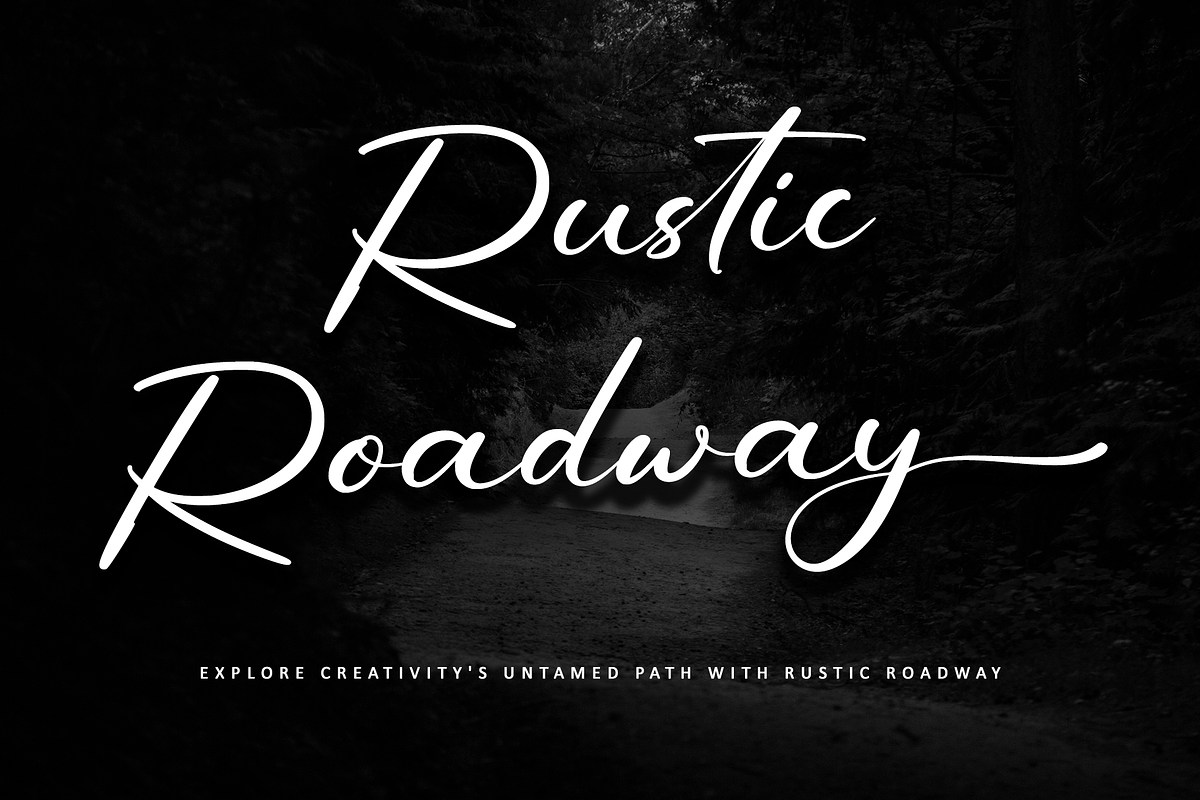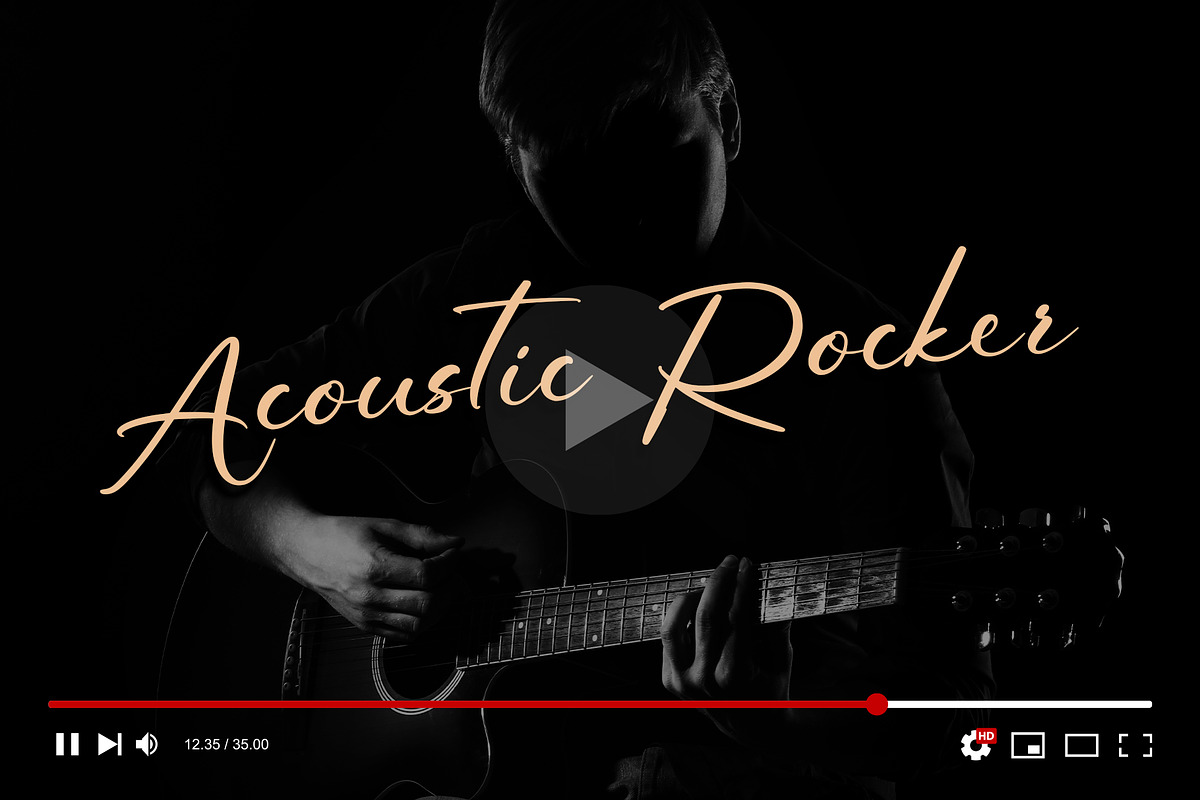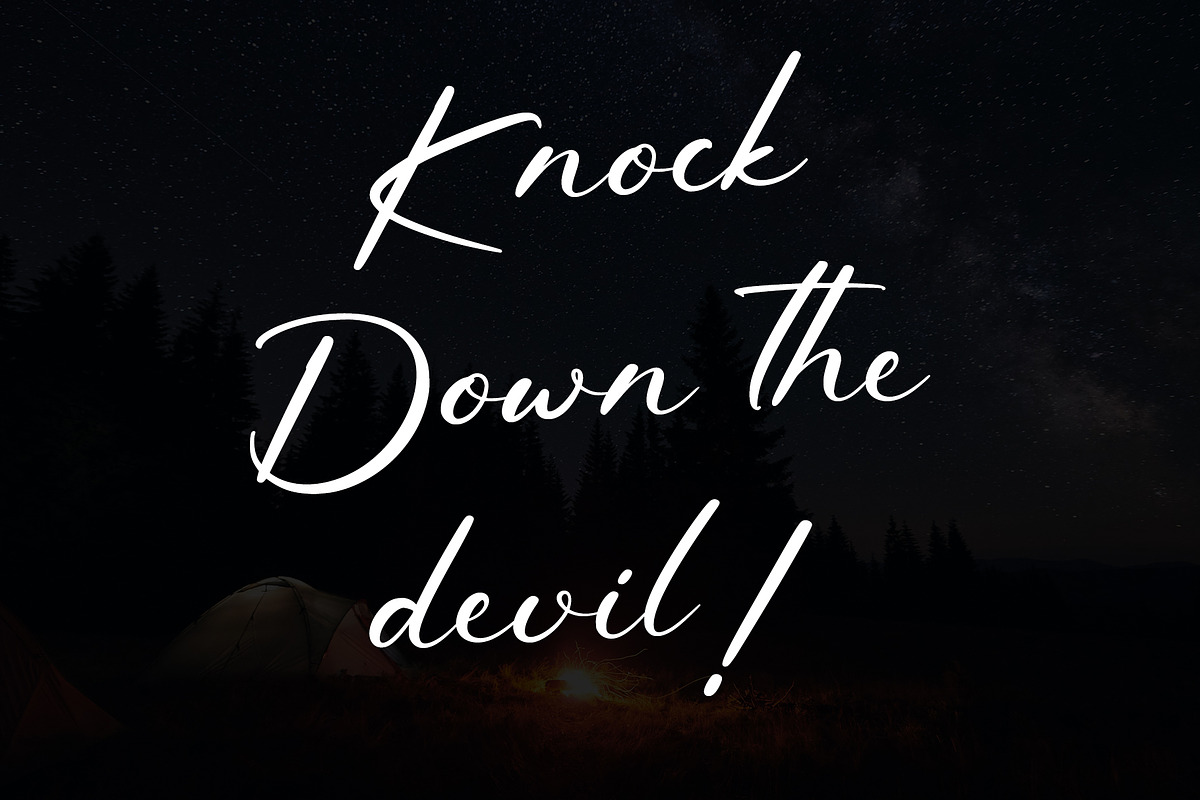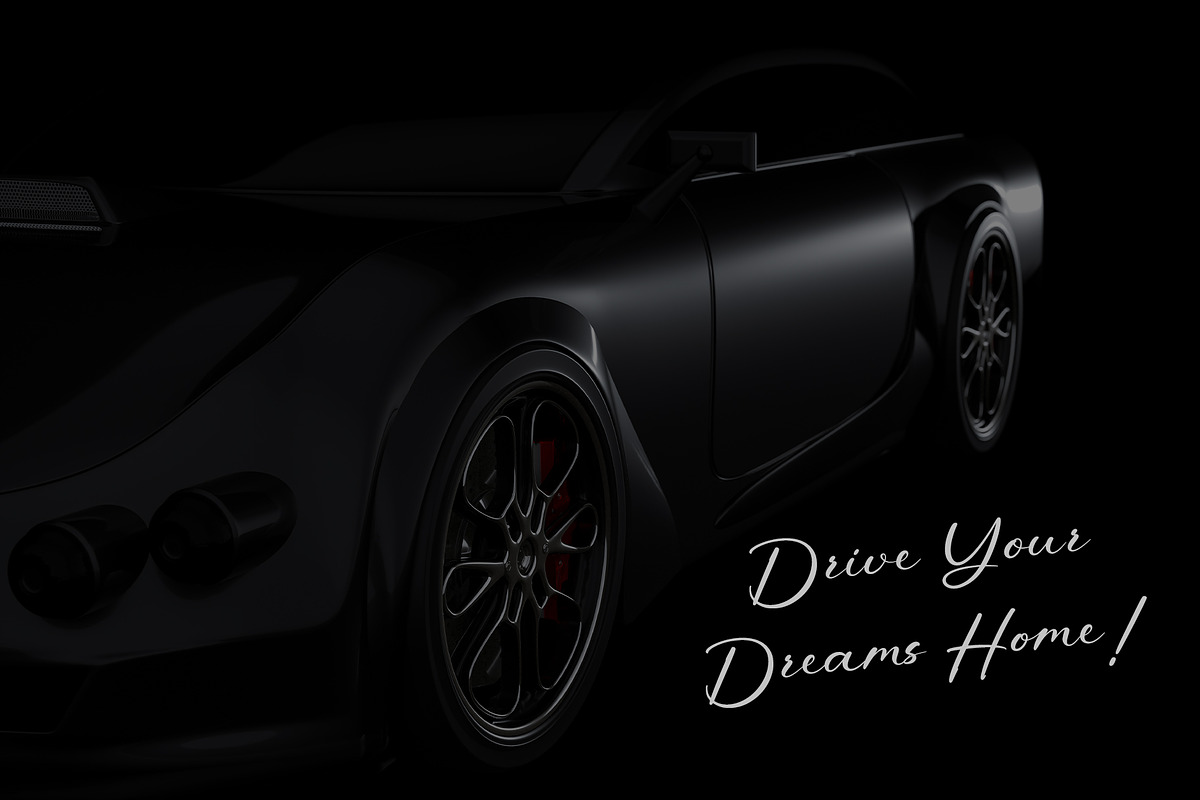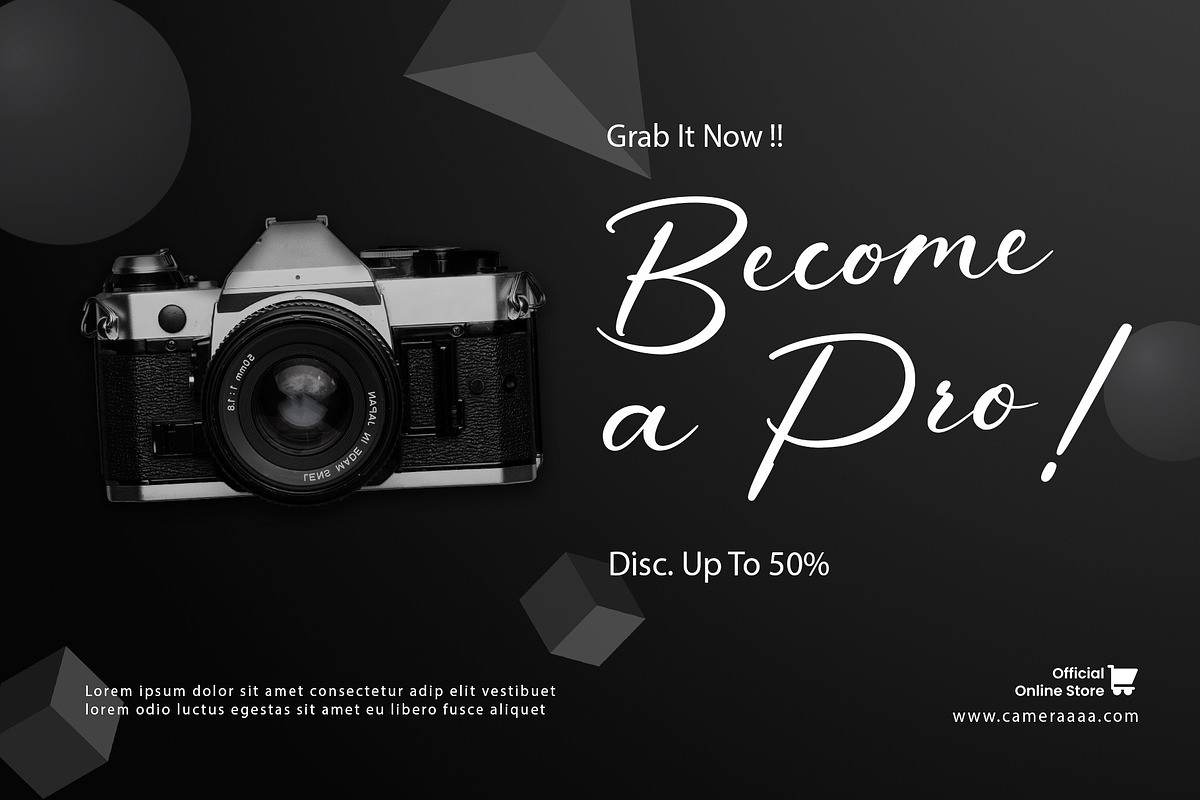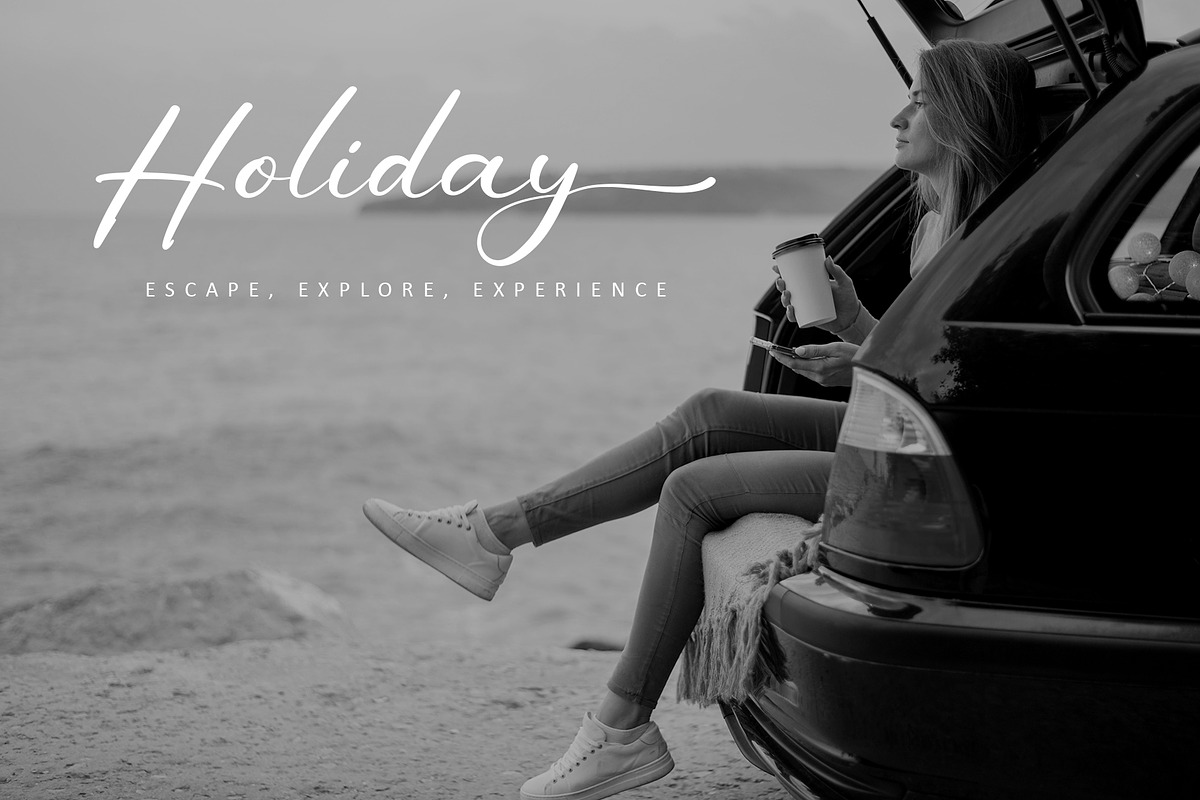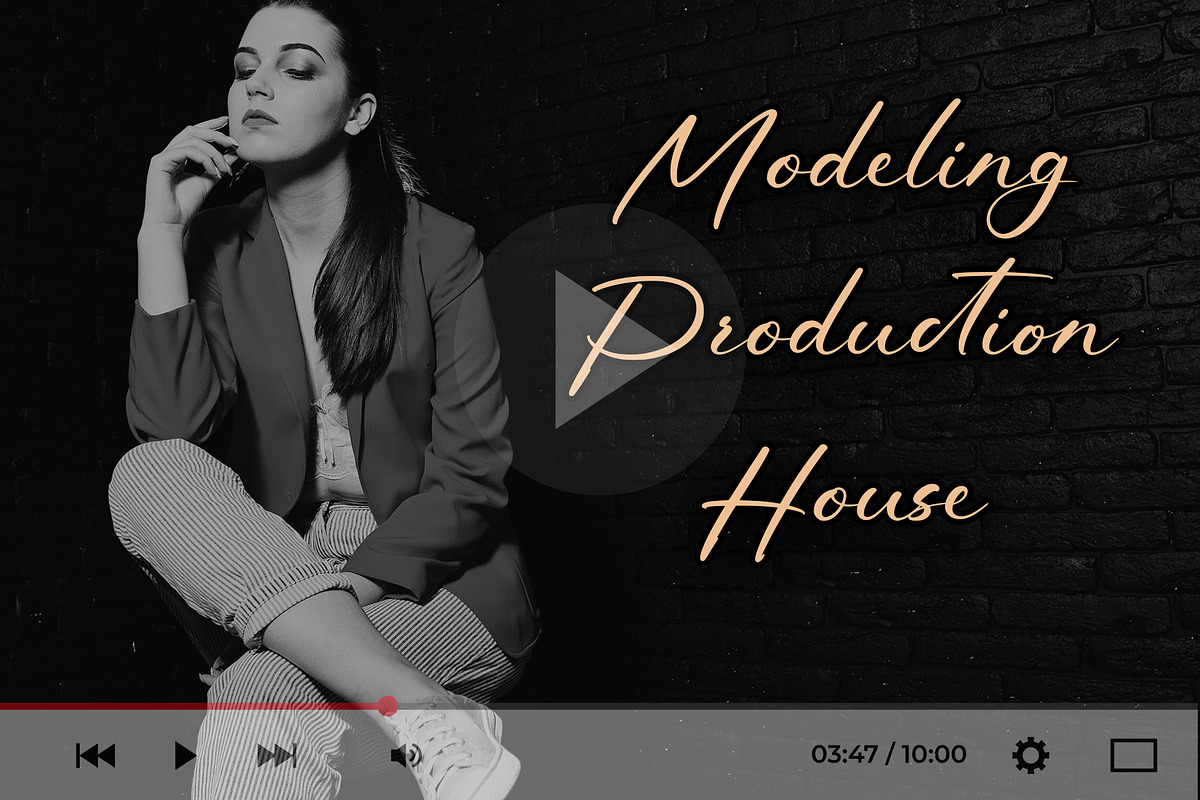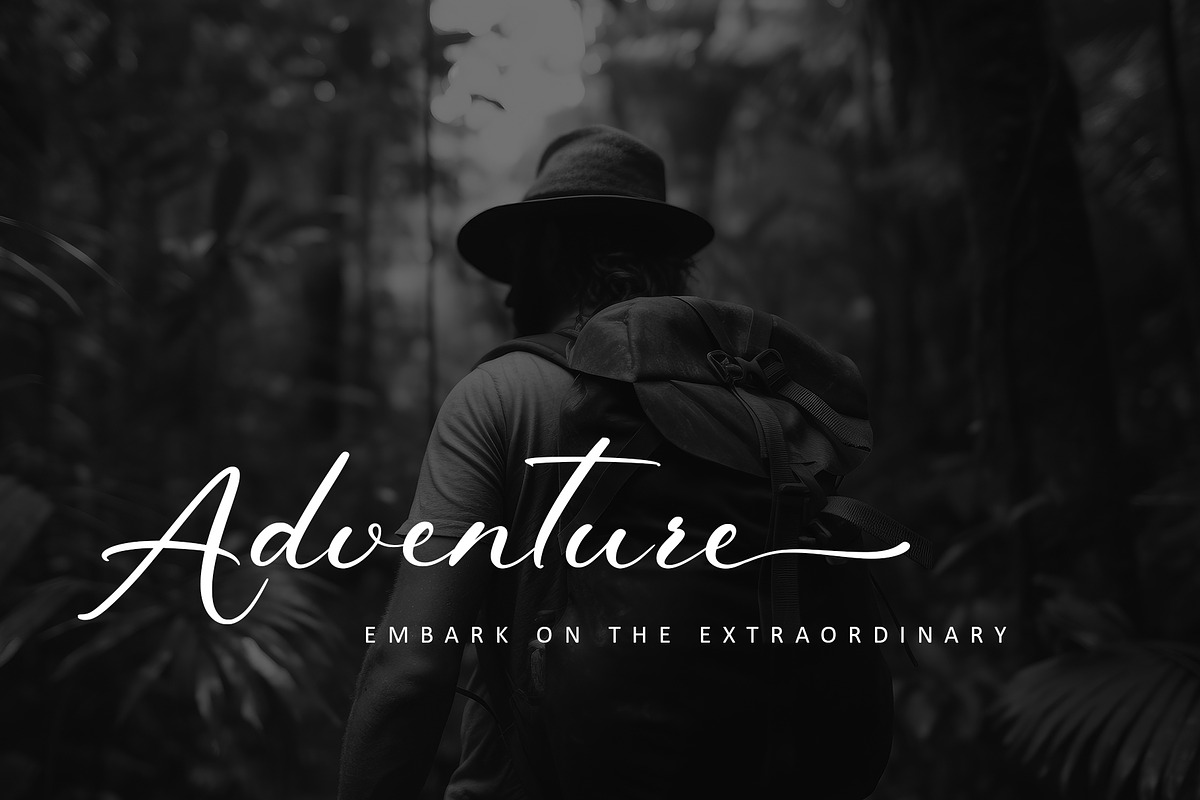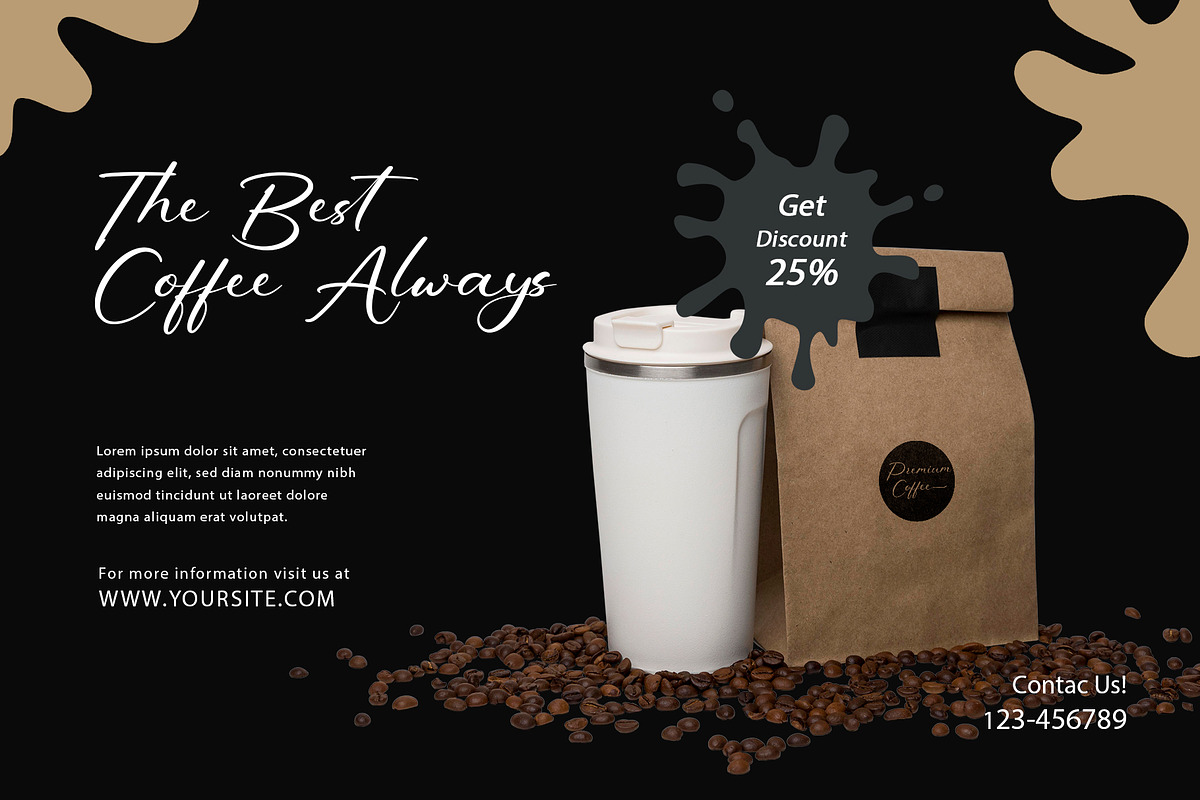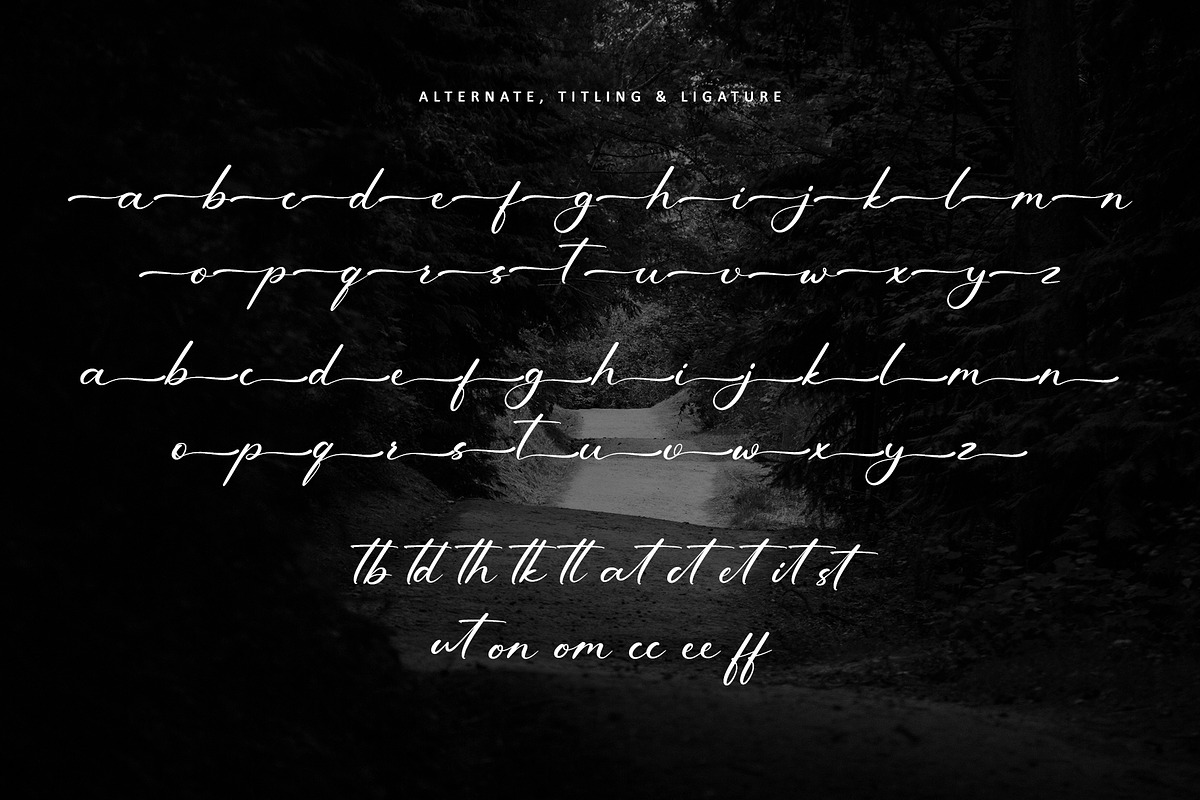
Rustic Roadway
Immerse yourself in the rustic charm of Rustic Roadway, a handwritten font that blends elegance with a touch of whimsy. Whether you're designing poster, branding, packaging, or any creative project that requires a personalized feel, Rustic Roadway adds a unique flair. Its PUA encoding provides access to a variety of glyphs and swashes, ensuring exceptional outcomes for your designs.
Many Features:
- Support multilingual; ä ö ü Ä Ö Ü ß ¿ ¡
- lowercase and uppercase letters
- Alternate, titling & ligature